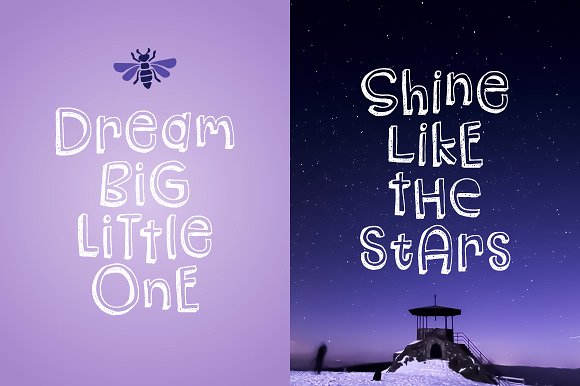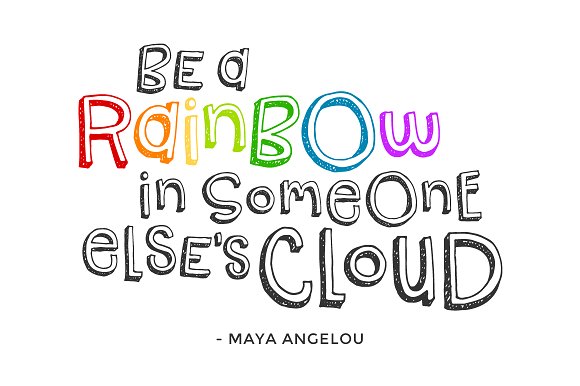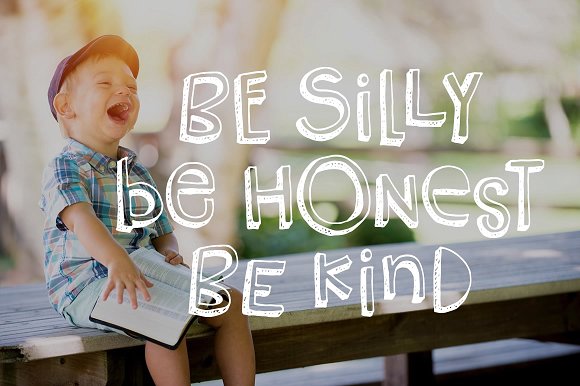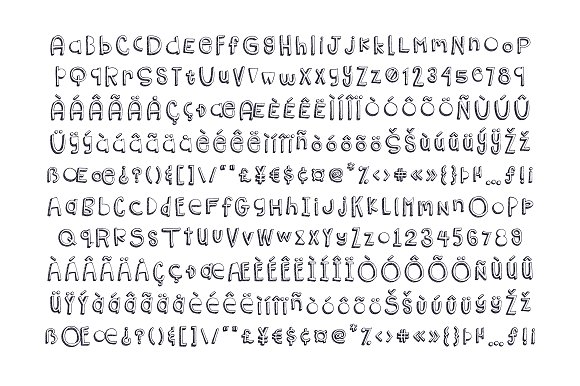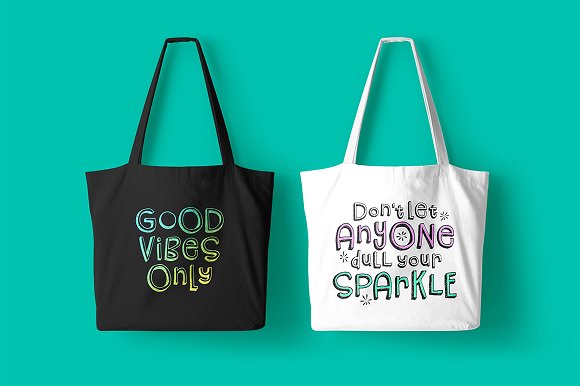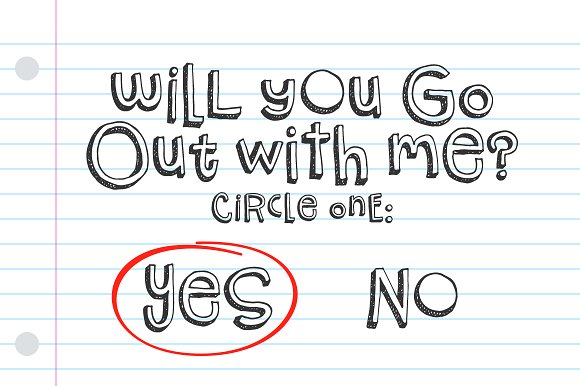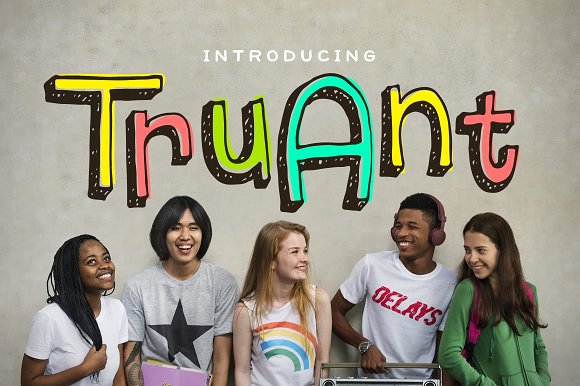
Truant Font
Introducing: Truant! A charming font that conjures up memories of those long school days only survived by passing notes with your best friend. Truant comes with an alternate set of characters which helps give your projects a unique, hand-drawn look.